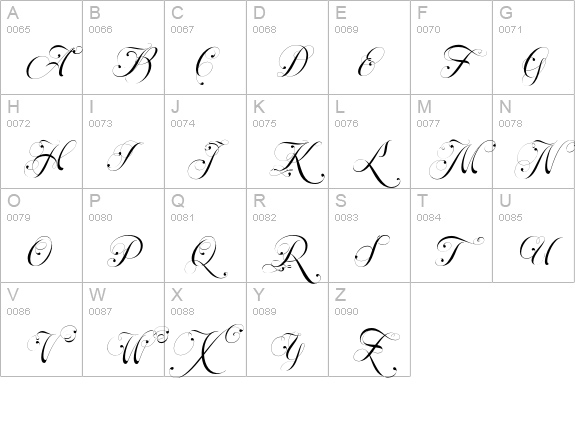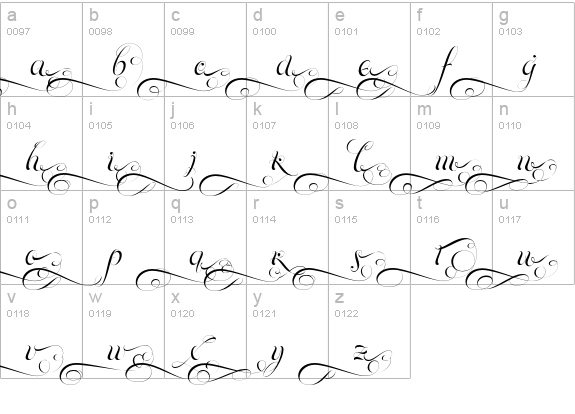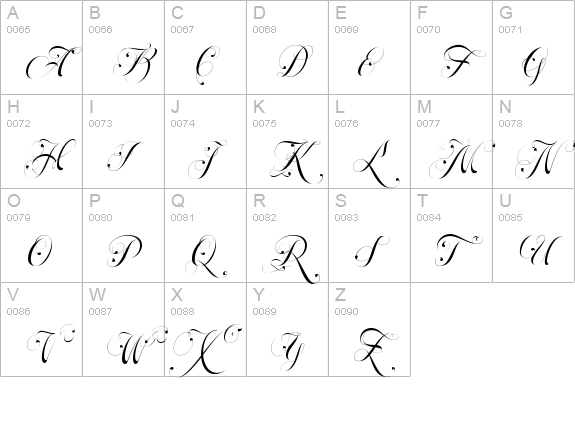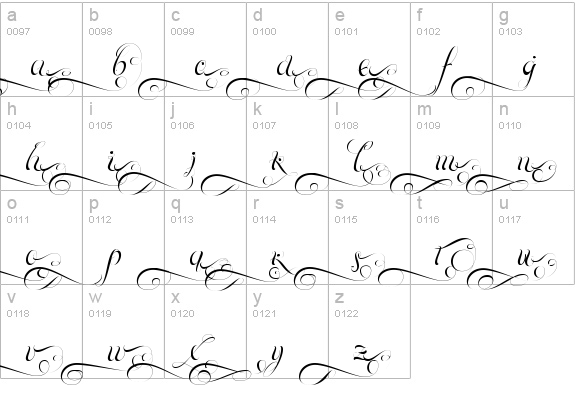
Parfait Script Endings Font Details
Parfait Script Endings font is a beautifully crafted typeface that adds elegance and sophistication to any design project. With its delicate and flowing letterforms, this script font exudes a sense of grace and charm. The unique endings of each letter bring a touch of flair and style, making it perfect for invitations, logos, packaging, and more. And the best part? Parfait Script Endings font is completely free to use! You can download this stunning typeface at FontsMarket.com and enhance your creative projects with its timeless appeal. Don't miss out on this opportunity to elevate your designs with the beauty of Parfait Script Endings font.